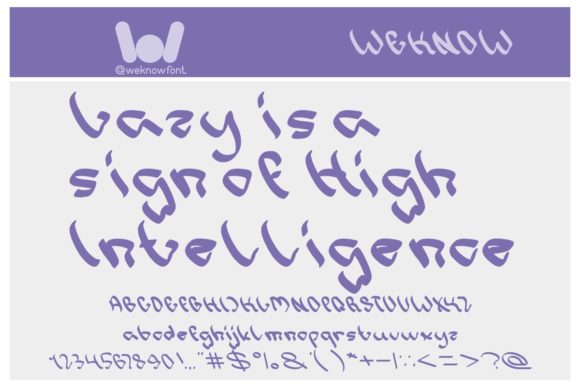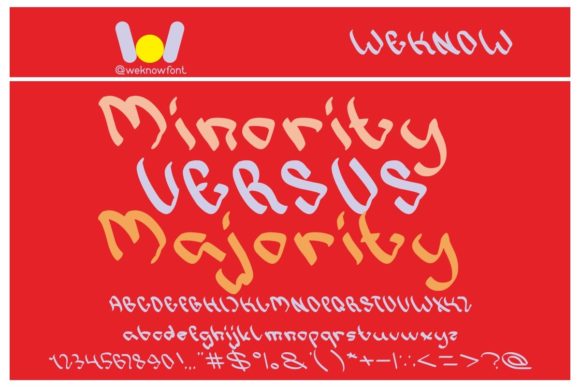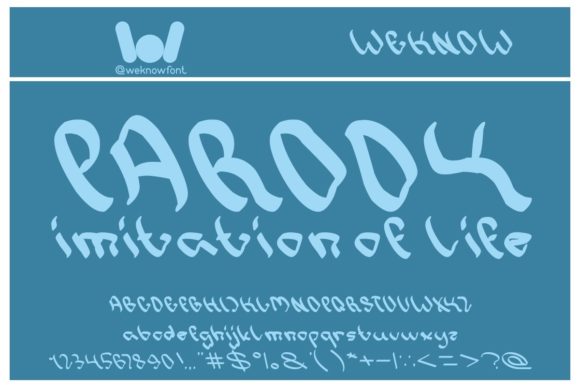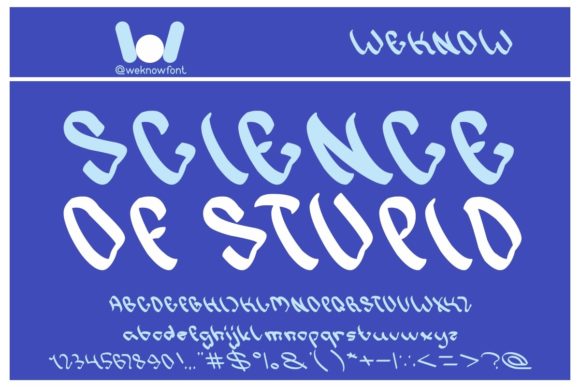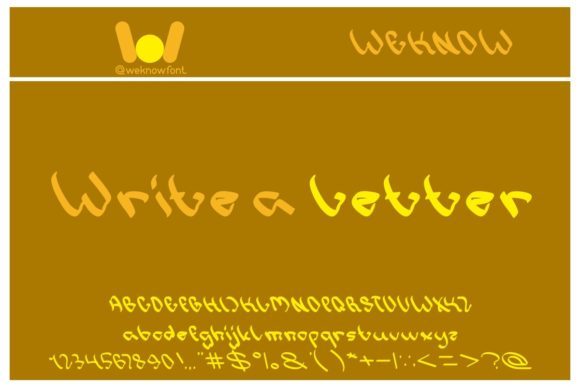
Write a Letter Font
About Write a Letter Font
Write a Letter is a clean and adaptable handwritten font. It will look stunning on any poster, flyer or print.